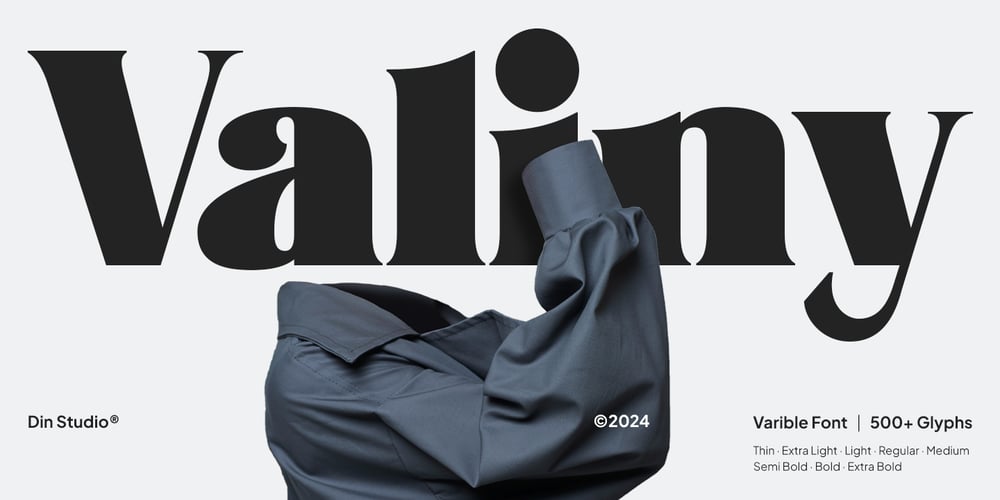
Valiny
Valiny font
Valiny Font Family was designed by Donis Miftahudin and published by Din Studio. Valiny contains 18 styles and family package options. Introducing Valiny, a sophisticated serif font family designed to elevate your creative projects. With 9 distinct weights and an elegant Italic version, Valiny combines timeless elegance, modern flair, and unwavering strength. Its harmonious proportions and refined details make it more versatile. Valiny’s versatility ensures that every letterform speaks with confidence and sophistication, giving your designs a polished, professional edge.Valiny’s different weight fonts : Thin (Regular & Italic) Extra Light (Regular & Italic) Regular (Regular & Italic) Medium (Regular & Italic) Semi Bold (Regular & Italic) Extra Bold (Regular & Italic) Black (Regular & Italic) Features: Alternates Ligatures Multilingual Supports PUA Encoded Numerals and Punctuations Valiny fits in headlines, logos, posters, invitation, branding materials, packaging, print media, editorial layouts, and many more designs. Find out more ways to use this font by taking a look at the font preview.Thanks for purchasing our fonts. Hopefully, you have a great time using our font. Feel free to contact us anytime for further information or when you have trouble with the font. Thanks a lot and happy designing.